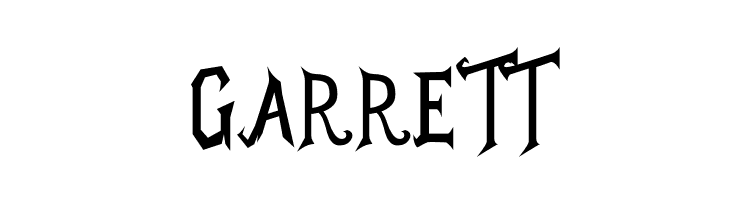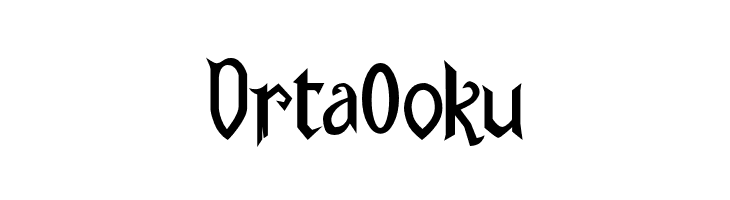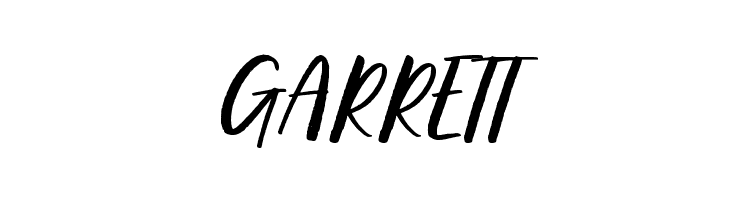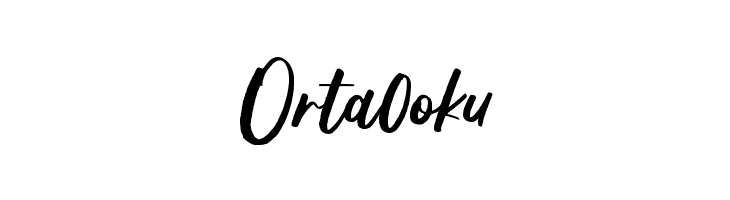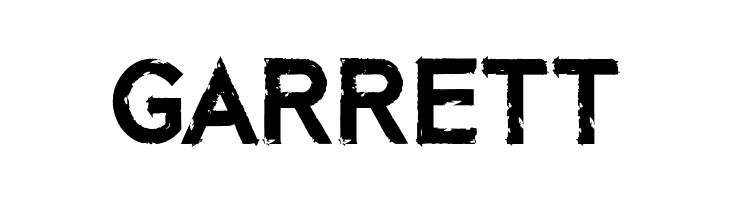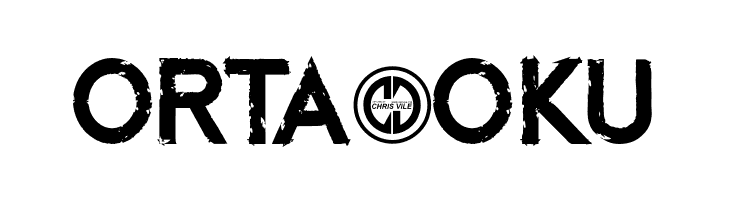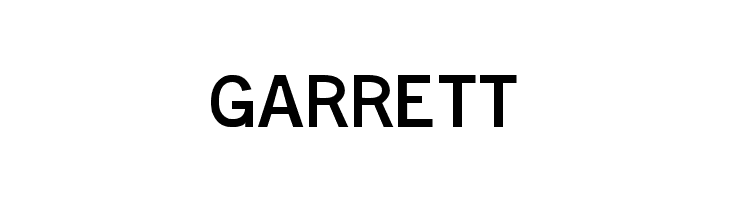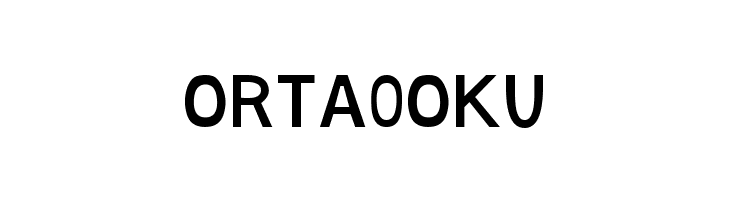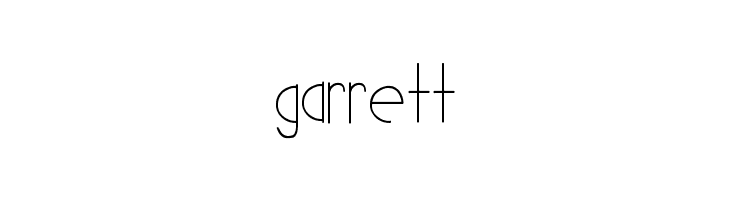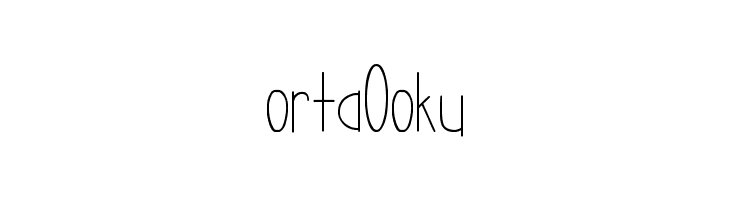
A gothic, dramatic font with sharp, angular lines and pointed serifs.
A bold, modern sans-serif font with clean lines and balanced proportions.
A playful, hand-drawn font with thin, elongated characters and a whimsical style.
A playful, informal handwritten font with irregular strokes and a whimsical appearance.
A whimsical, handwritten font with playful decorative elements.
A playful, casual handwritten font with fluid, irregular strokes.
A casual, handwritten font with a playful and informal style.
A bold, outlined font with a playful, three-dimensional effect.
A bold, handwritten font with dynamic strokes and a modern, artistic flair.
A bold, distressed font with a futuristic and edgy design.